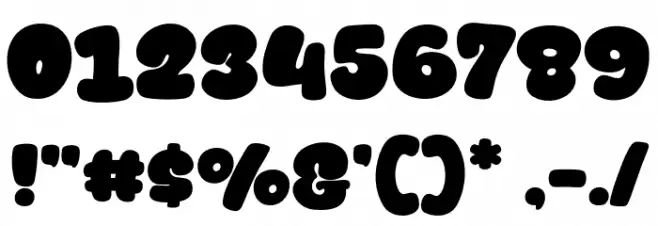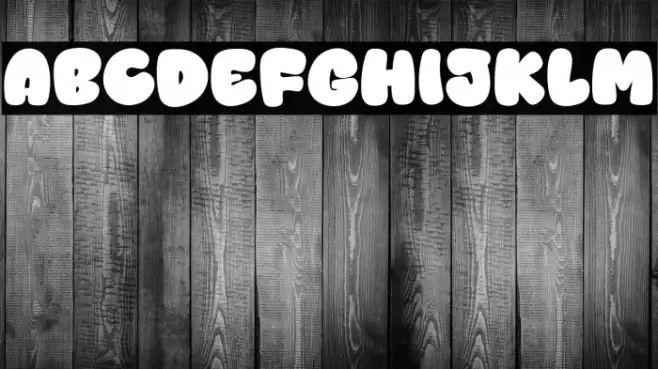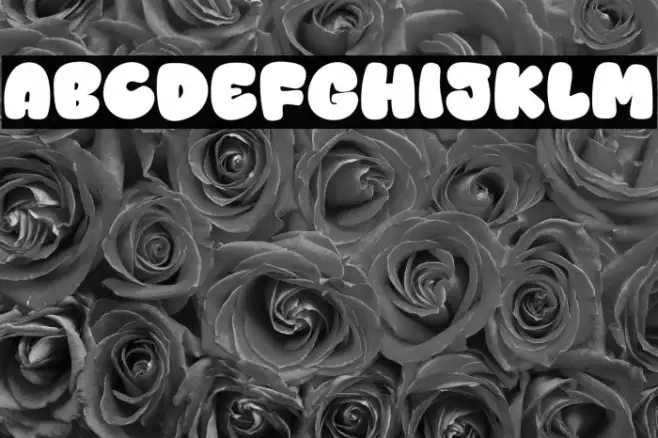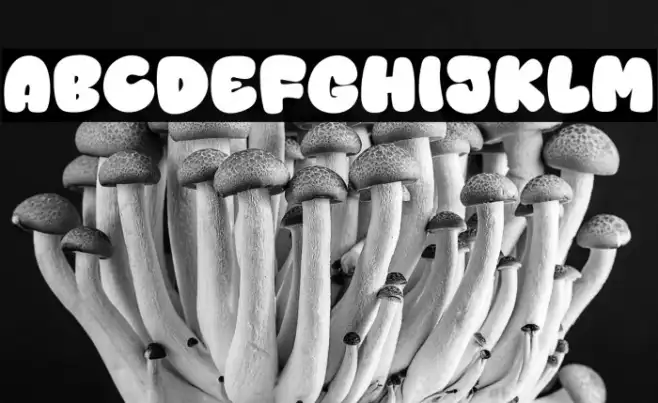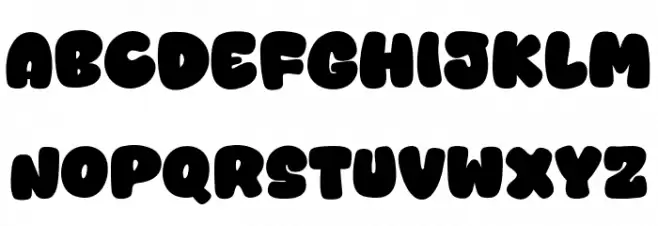
Bold Drop Font
Bold Drop Description
This font features a playful and bold design with rounded, bubble-like characters. The letters are thick and uniform, creating a sense of fun and whimsy. The style is consistent across uppercase, lowercase, numbers, and special characters, maintaining a cohesive look. The font's boldness makes it stand out, while the rounded edges give it a friendly and approachable feel. It's ideal for projects that require a touch of creativity and lightheartedness, such as children's books, playful branding, or eye-catching headlines.
A bold, rounded font with a playful and whimsical style.
- Font: Bold Drop
- Proposed Projects: Ideal for children's books, playful branding, posters, and eye-catching headlines.
- Overall Style: Playful, Whimsical
Bold Drop UPPERCASE
Bold Drop LOWERCASE
Bold Drop OTHER CHARS